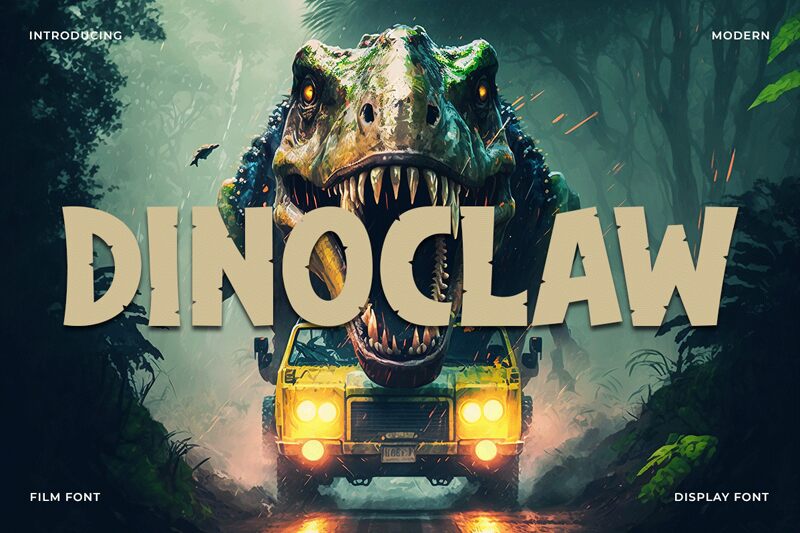
Dinoclaw is a cartoon font published by Kong Font. The line between fun and professional is a hard one to maintain, but in this case, it has to be said, it has been walked perfectly. Bold fonts with rounded edges have a playful tone while sharp lined tall ones are more serious, formal, and elegant. This is a typeface combining and inheriting qualities from both ends of the spectrum.